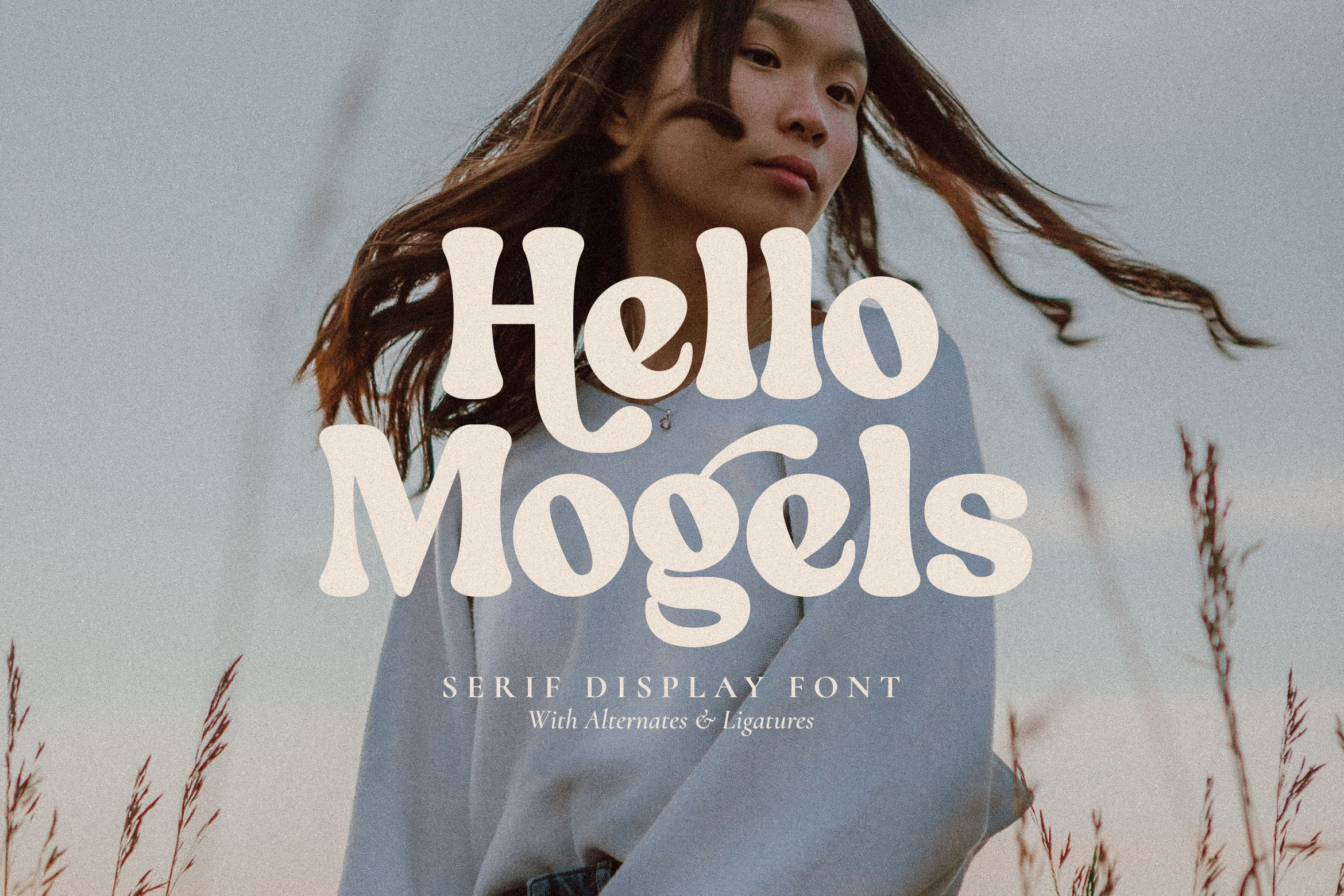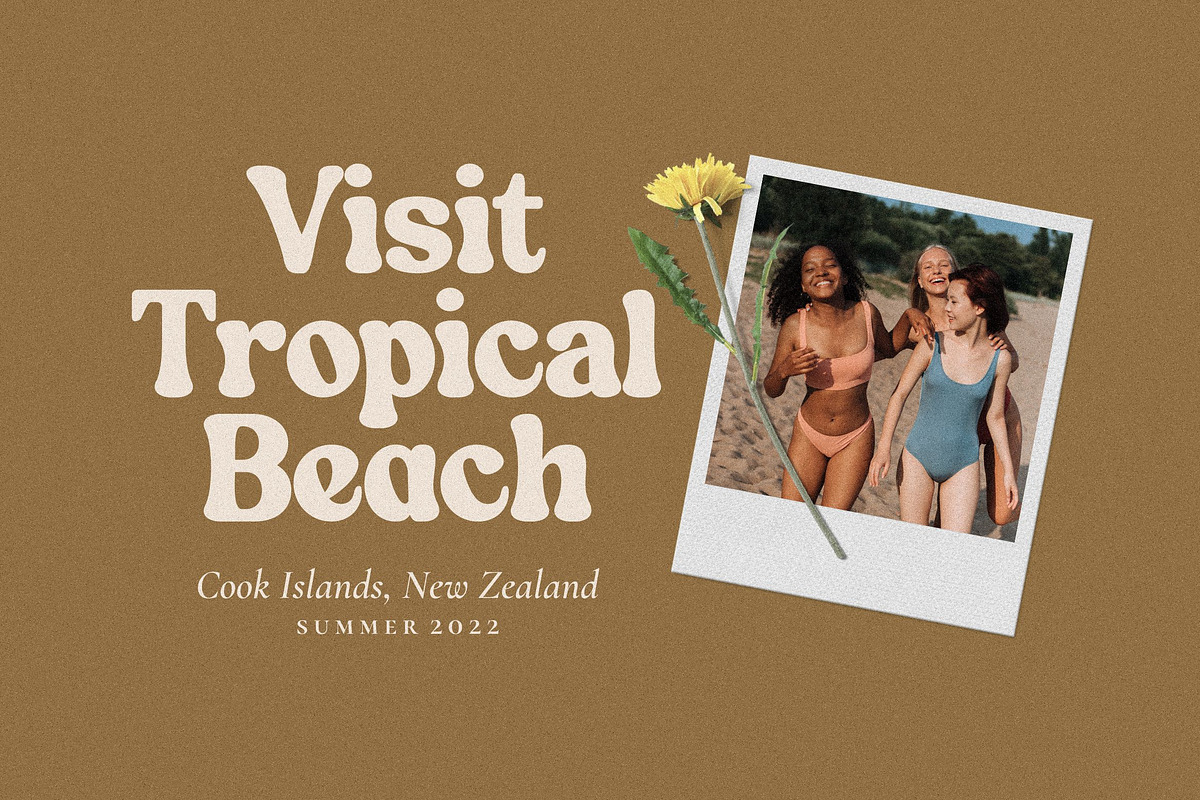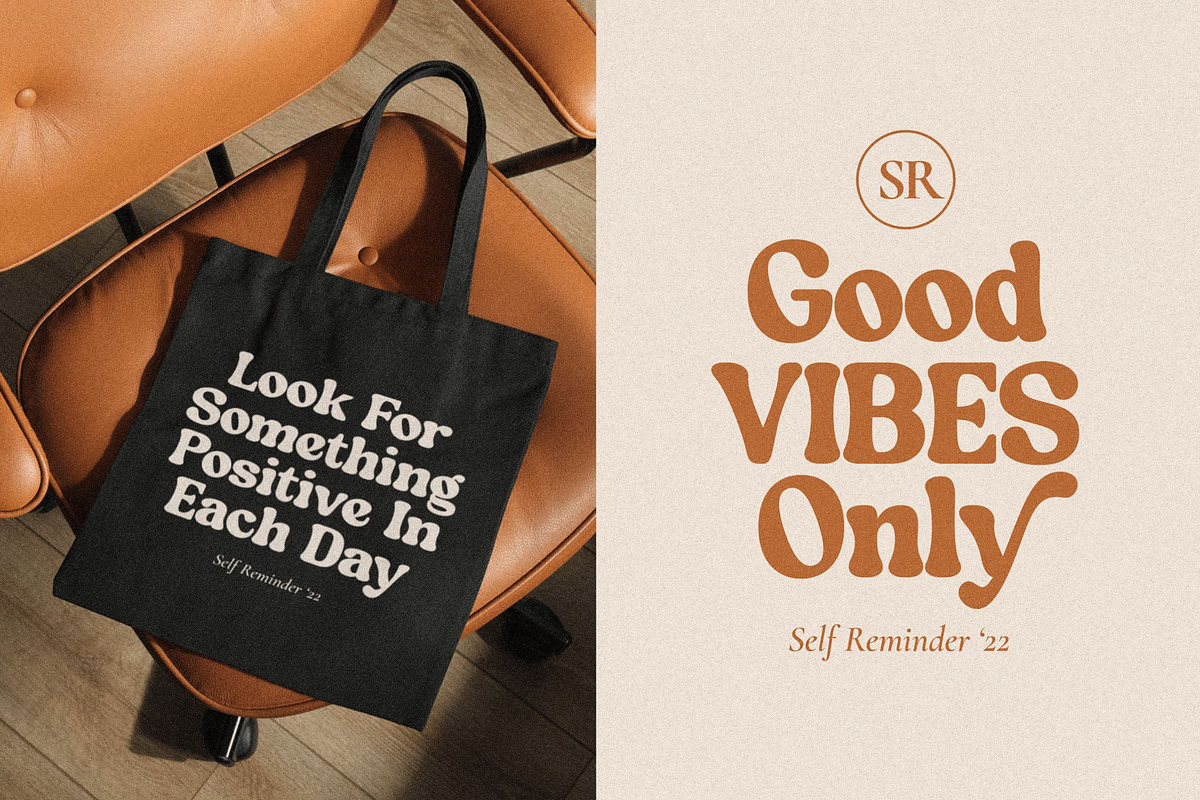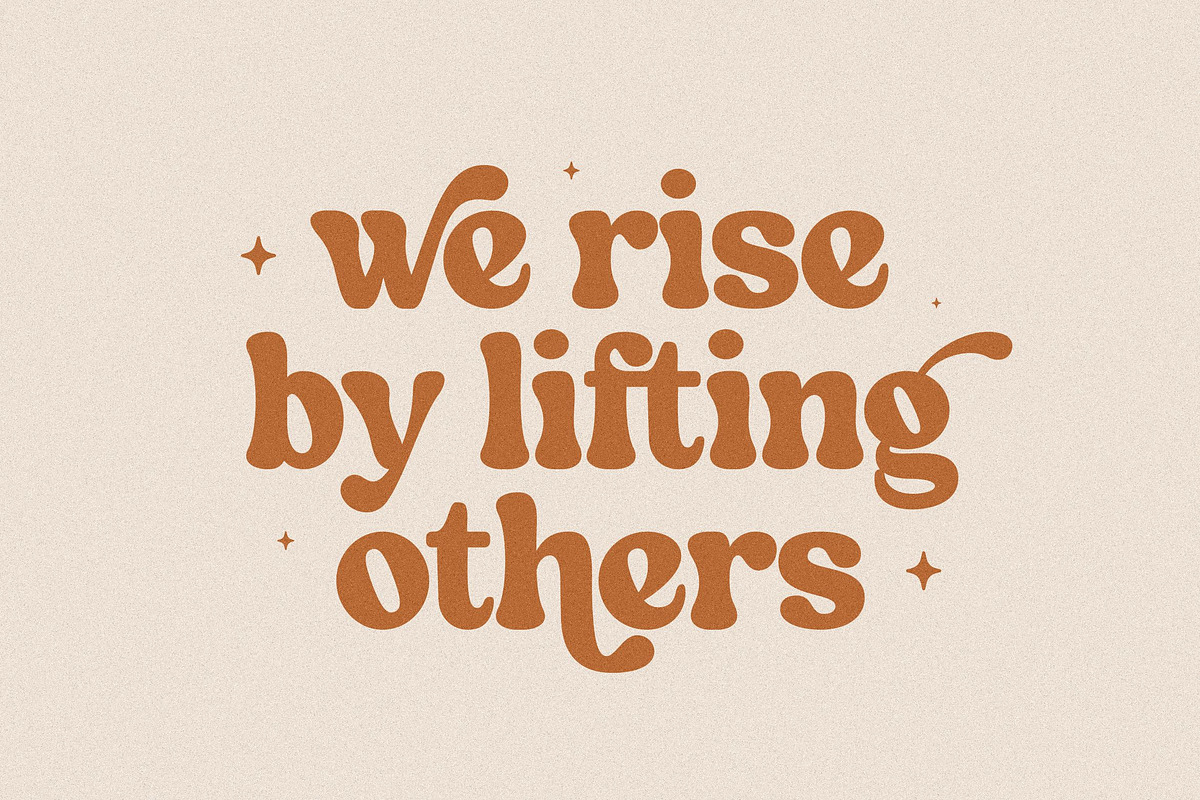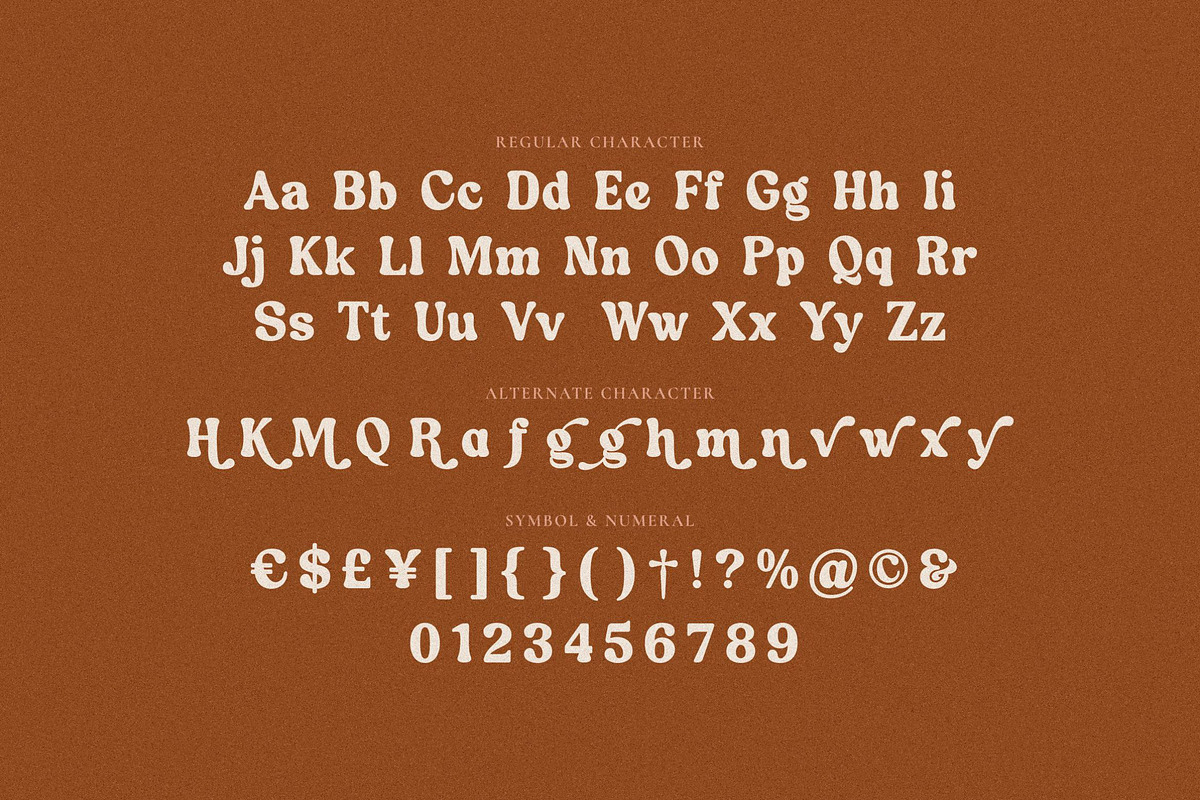
Hello Mogels - Serif Display Font
Hello Mogels is aesthetic serif display font with alternates & ligatures. Suitable for logos, branding, master signs, headlines, quotes, products and other designs. Many Alternates and ligatures to make every design unique.
- Alternatives